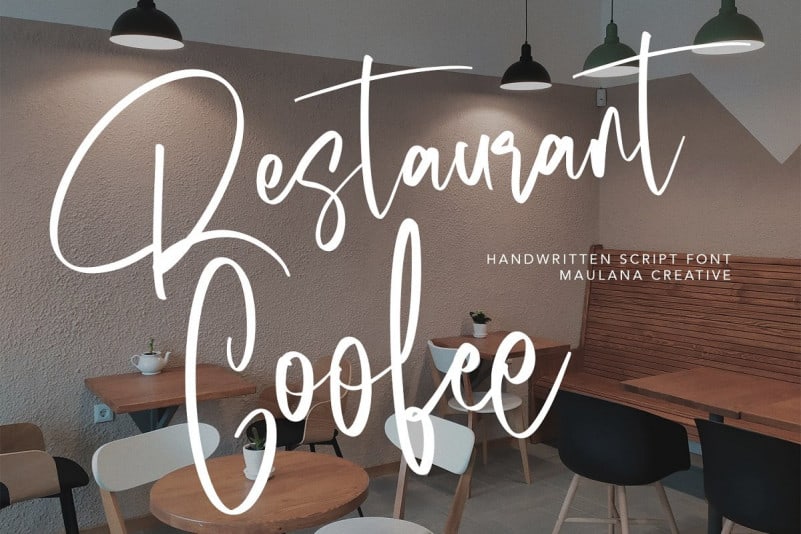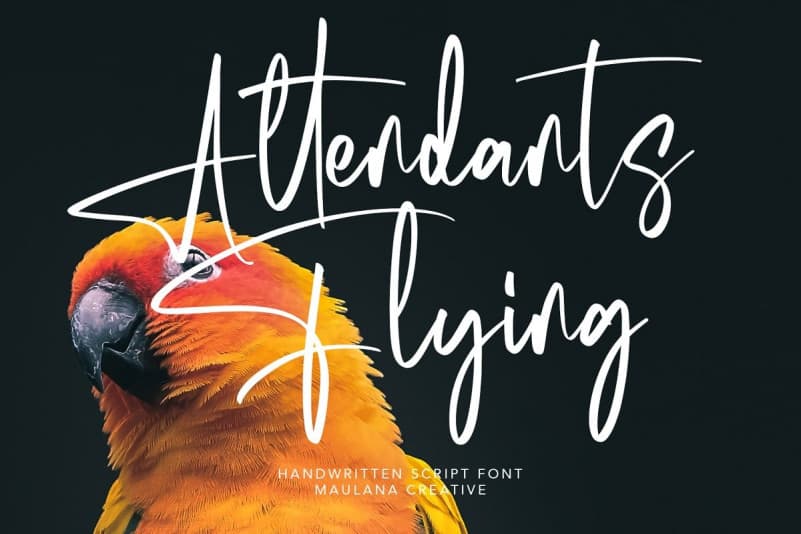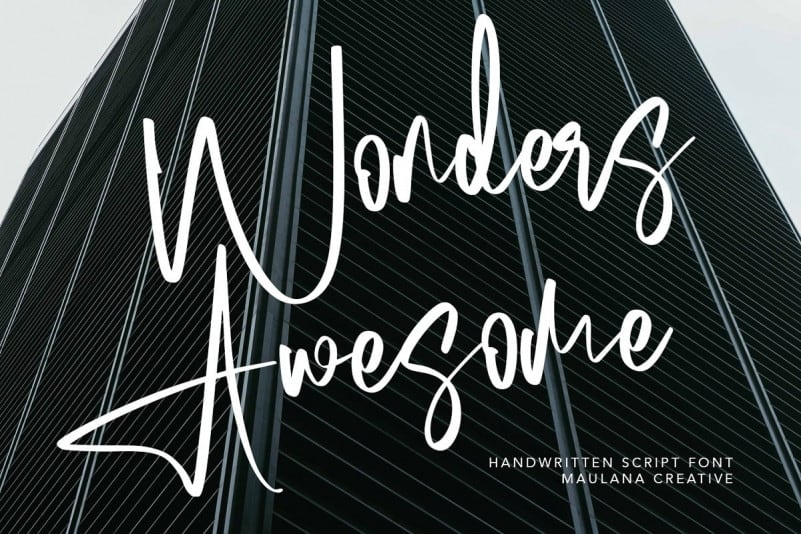
Symptonics Script Font
Symptonics Script Font is a quickly hand-drawn font created by Maulana Creative. Written with a brush pen and tidied up for smooth and balanced results. This typeface is perfectly suited to signature, stationery, logo, typography quotes, magazine or book cover, website header, flyer, clothing, branding, packaging design and more.